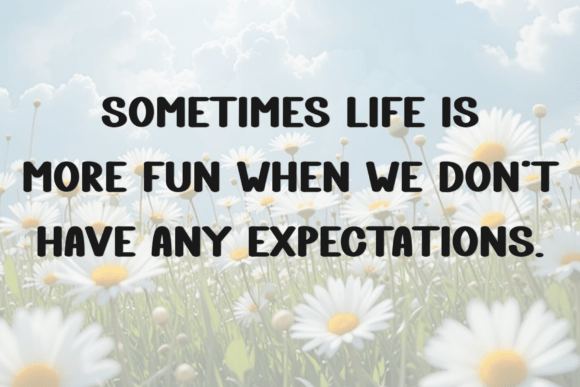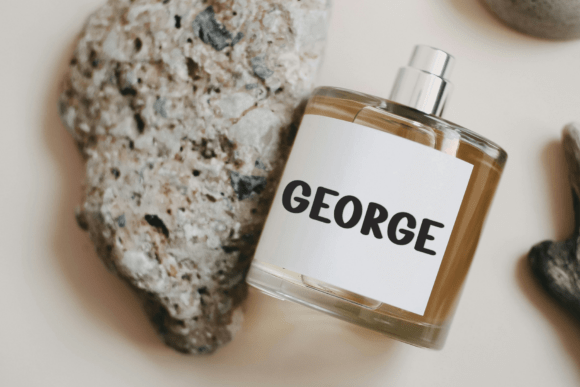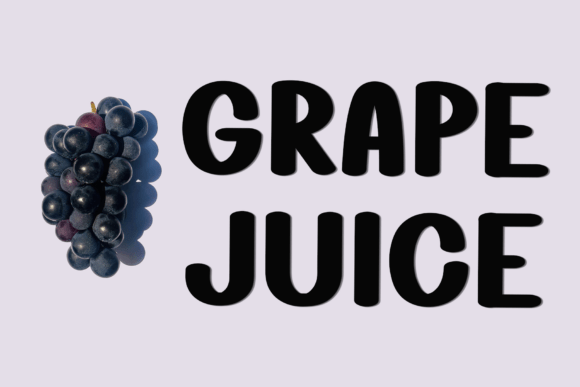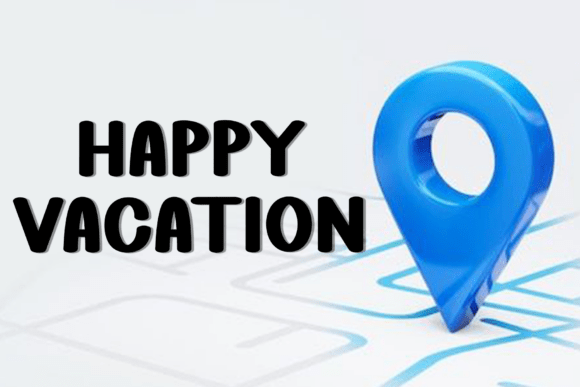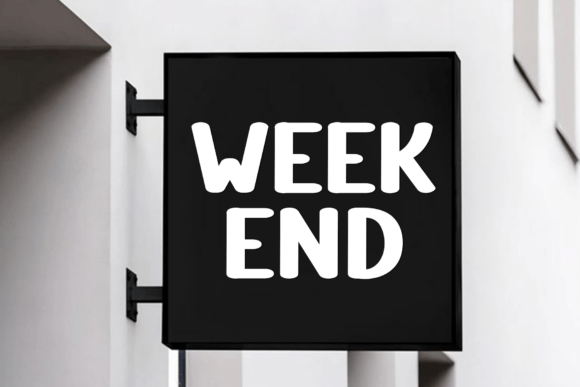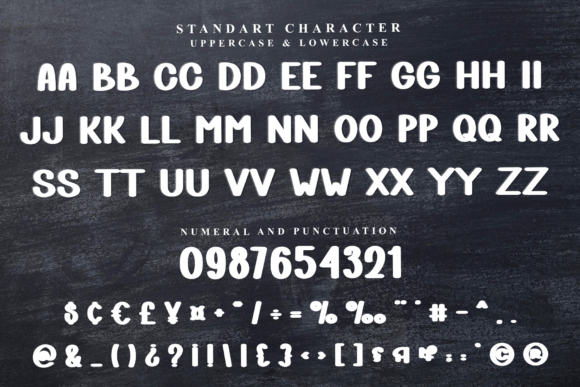
The Magic of the Holiday Season in Typography
As I sat at my desk, surrounded by twinkling lights and the faint scent of pine, I couldn’t help but feel the excitement of the holiday season. It’s a time when creativity knows no bounds, and the possibilities for festive designs seem endless. And then, it hit me – the perfect font to capture the whimsy and wonder of this special time of year: the Apple Banana Font.
This delightful typeface is a masterclass in festive design, with its playful decorations and charming flair. Whether you’re crafting a greeting card, designing gift tags, or working on a holiday-themed project, the Apple Banana Font is the perfect companion to bring your words to life. With its PUA encoding, accessing all the amazing glyphs and ligatures is a breeze, making it a valuable asset for designers looking to add a touch of magic to their typography.
Key Features of Apple Banana Font
- Font Family: Apple Banana Font is a unique, hand-drawn sans-serif font family.
- Unique Characteristics: This font features a playful, hand-drawn aesthetic with subtle imperfections, giving it a friendly and approachable feel, perfect for branding, logos, and editorial content.
Apple Banana Font Review
Overall, I was a bit skeptical about the Apple Banana Font at first, but it’s actually a decent choice for casual use. Here are the things that work well:
- ✨ The font is quite readable, especially at smaller sizes.
- ✨ It’s a great choice for titles and headings due to its friendly and approachable feel.
- ✨ The font is relatively lightweight, which can be beneficial for website performance.
- ⚠️ The font may not be suitable for formal or professional projects, as it can come across as too casual.
- ⚠️ It’s not the most versatile font, so you may find yourself limited in terms of styling options.
- ⚠️ The font doesn’t support a wide range of languages, which can be a problem if you need to translate your content.
Overall, I’d say the Apple Banana Font is a solid choice for personal projects or websites where a friendly, approachable feel is desired. However, it may not be the best fit for more formal or professional applications.
The Apple Banana Font is a versatile font that can be used in a variety of designs, including:
– Food labels and packaging
– Children’s book illustrations
– Restaurant menus
– Tips for getting the most out of the font include using it in combination with other playful fonts and design elements, and adjusting the font size and color to create visual interest.